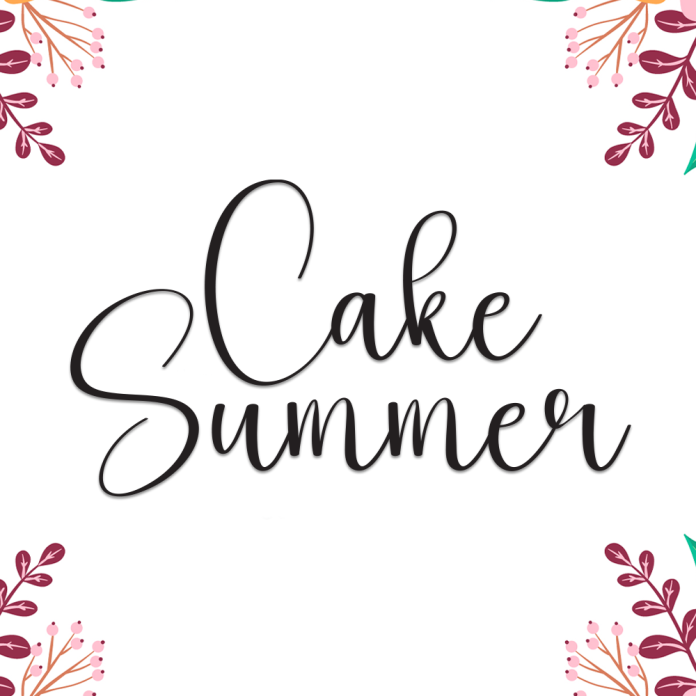
Cake Summer is a delightful and cheerful handwriting font inspired by the fun and colorful vibes of summer. Its soft, flowing strokes and playful feel bring a sense of warmth and charm, making it perfect for friendly and creative design projects.
Ideal for birthday invitations, dessert packaging, social media quotes, journaling, scrapbooking, and other cute DIY crafts, Cake Summer adds a personal and joyful touch to any design.
Playful and sweet handwritten style
Uppercase & lowercase characters
Numbers & punctuation